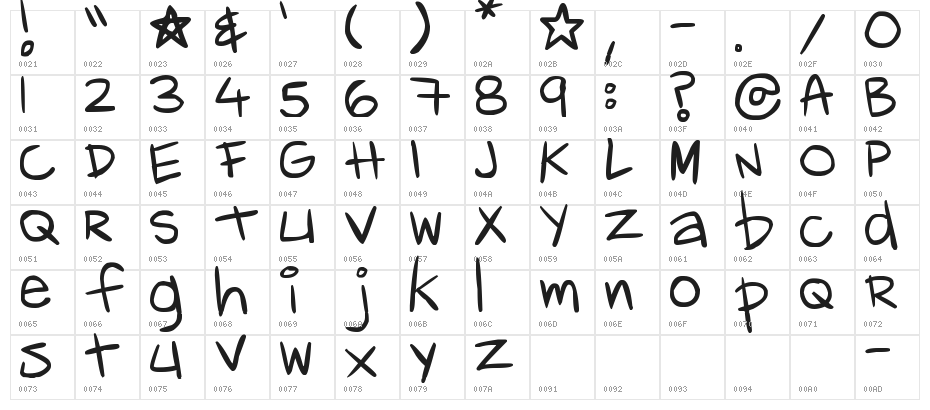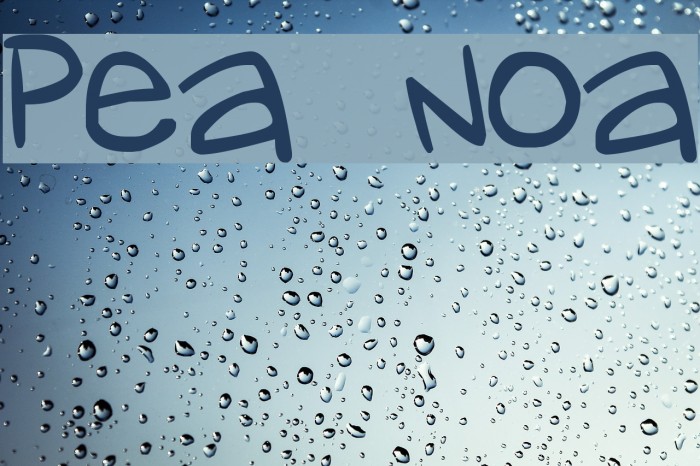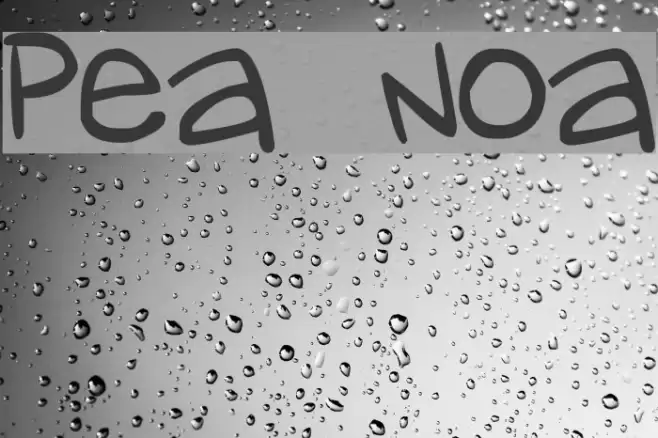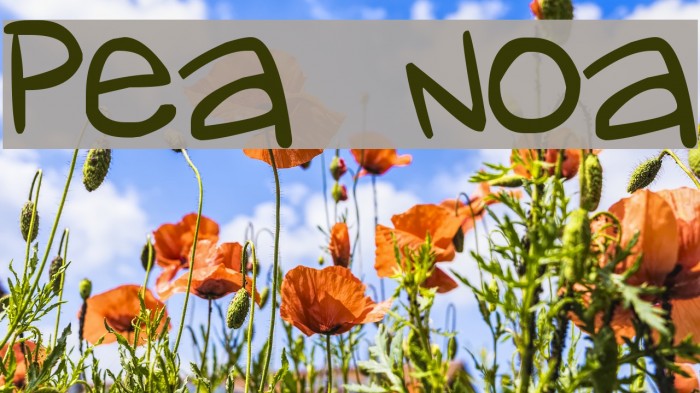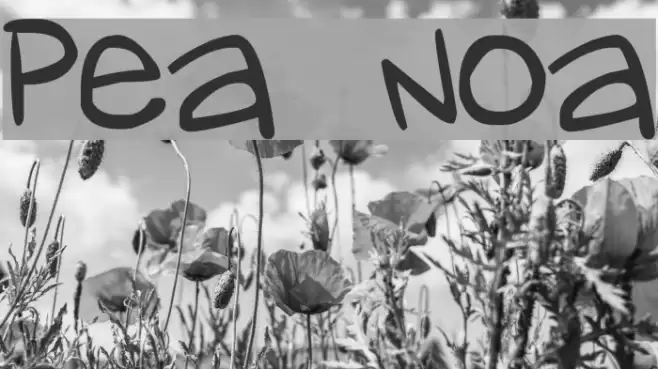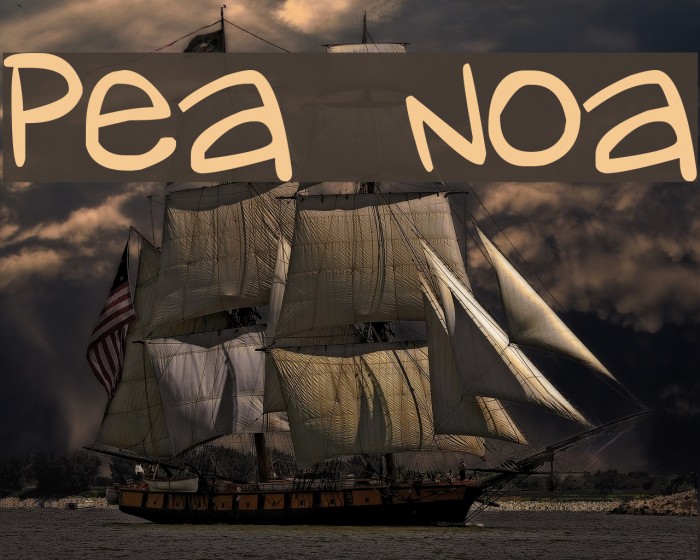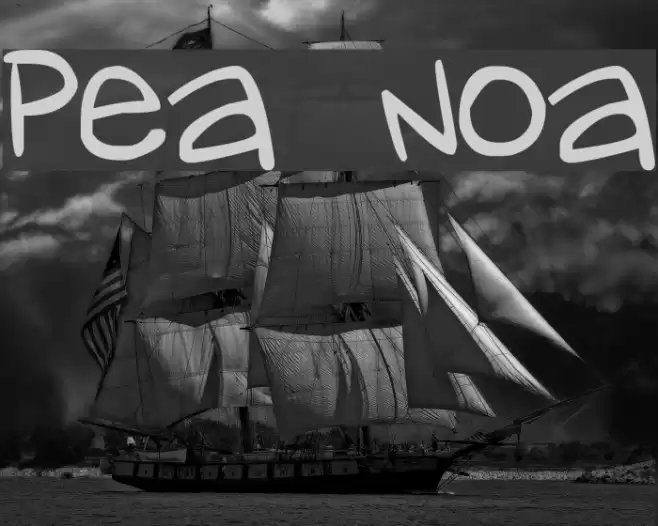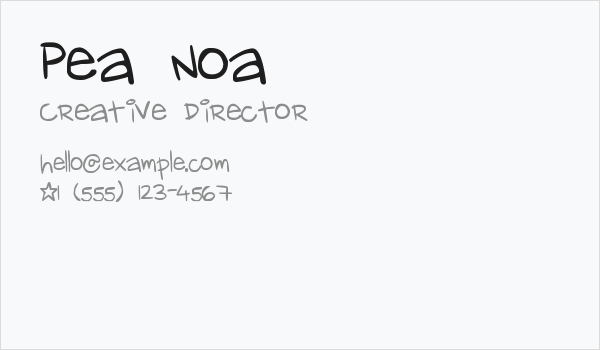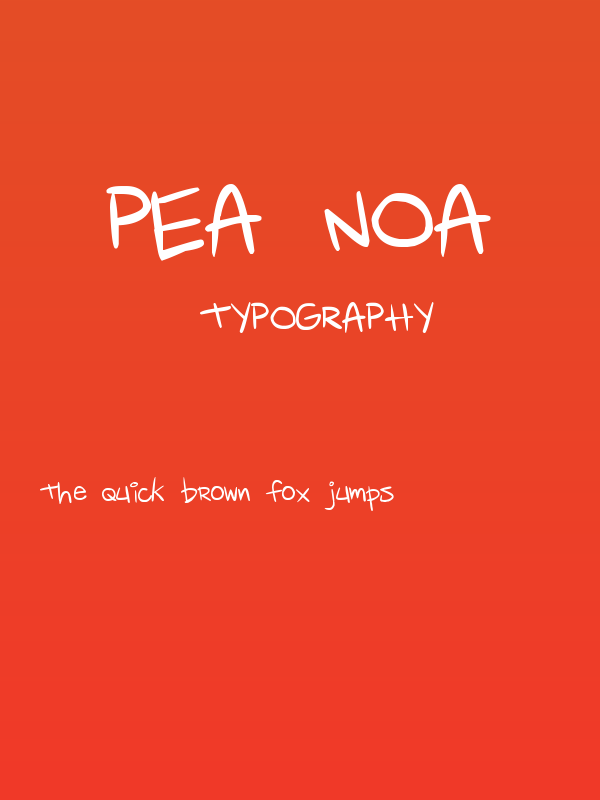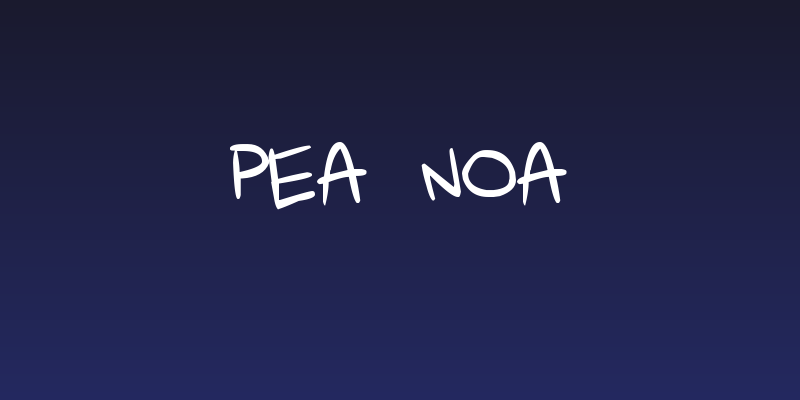
Pea Noa Font
Pea Noa Description
This playful and informal font features a handwritten style with a casual, friendly appearance. The characters are slightly irregular, adding a personal touch that mimics natural handwriting. The strokes are smooth and rounded, giving it a warm and approachable feel. The uppercase and lowercase letters maintain a consistent style, with a slight slant that enhances the handwritten effect. The numerals and special characters are equally whimsical, fitting seamlessly with the overall aesthetic. This font is perfect for projects that require a personal, human touch, such as greeting cards, invitations, or casual branding.
Overall StyleCasual, Playful
Use CaseHeadlines, Informal text, Personal projects
Proposed ProjectsIdeal for greeting cards, invitations, personal branding, and informal communications.